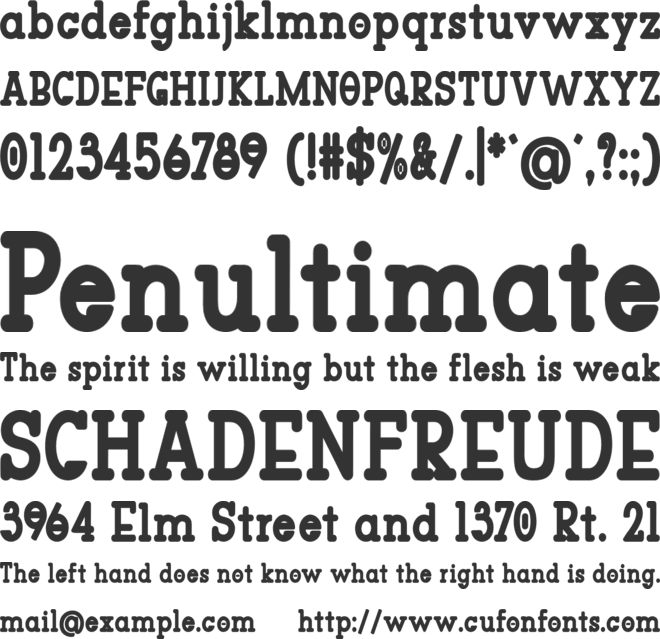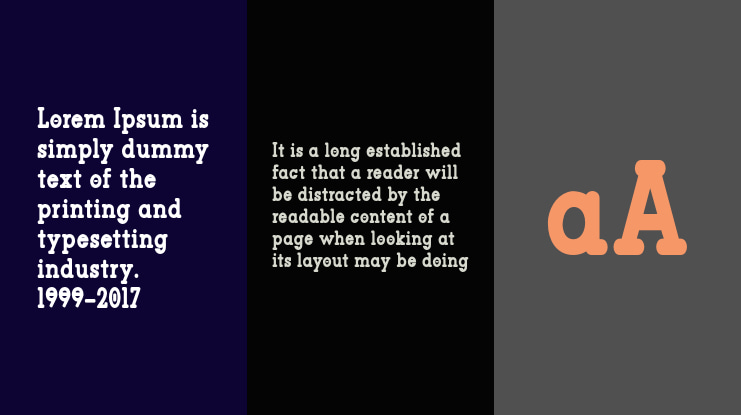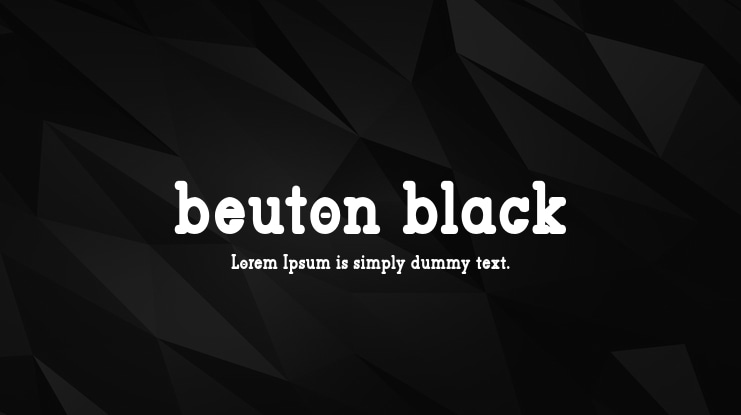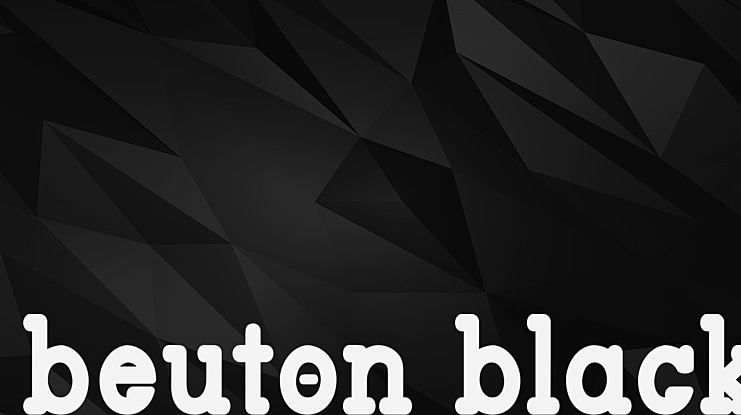
beuton black Font Family
Beuton is a new modern font and is perfect for stationery, logos, t-shirts, paper, print designs, website headers, photo frames, leaflets, music covers, posters, image sliders and more.Commercial licensing is available at www.myfonts.com/fonts/bbb-key/beuton/ (https://www.myfonts.com/fonts/bbb-key/beuton/)